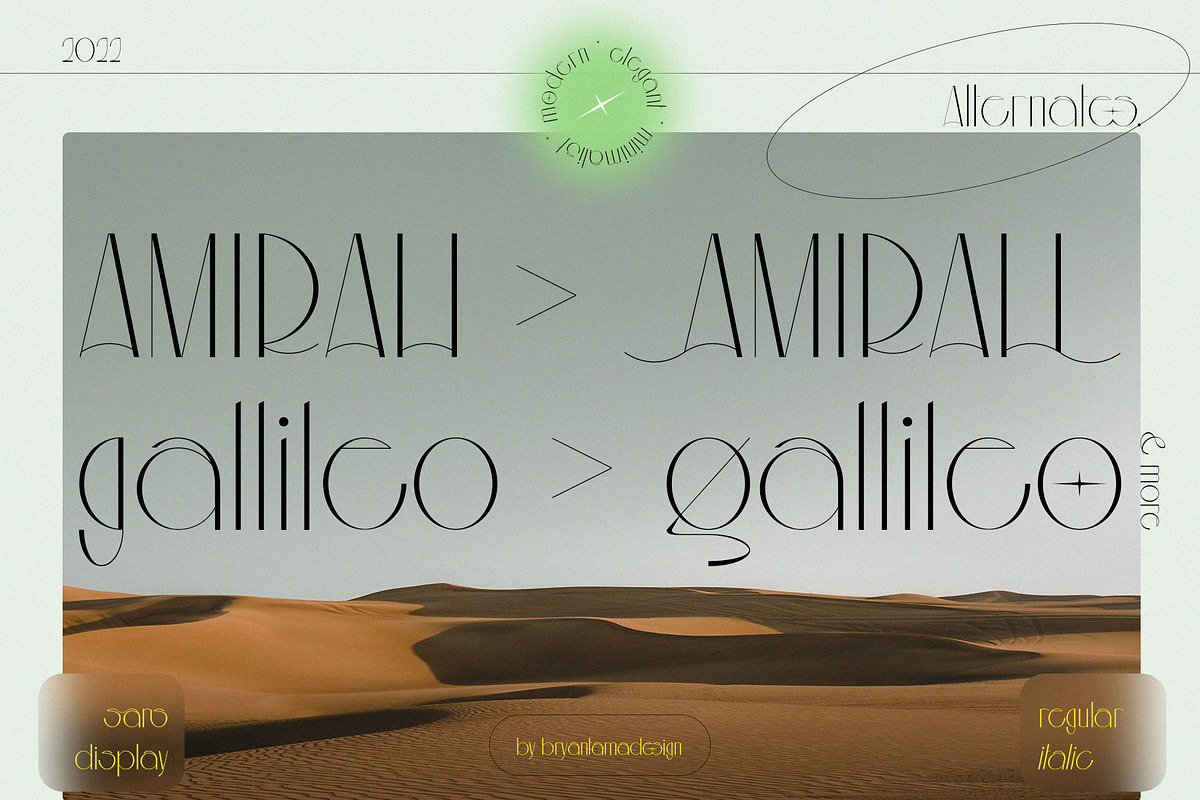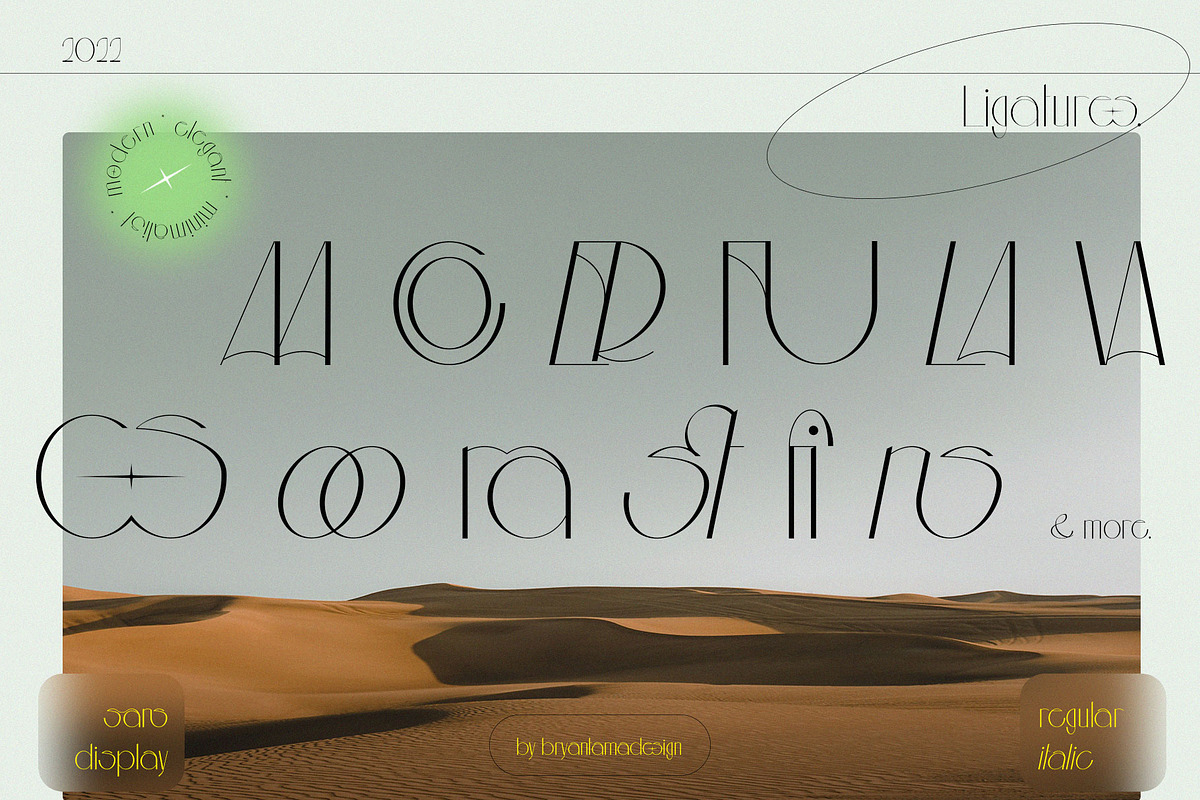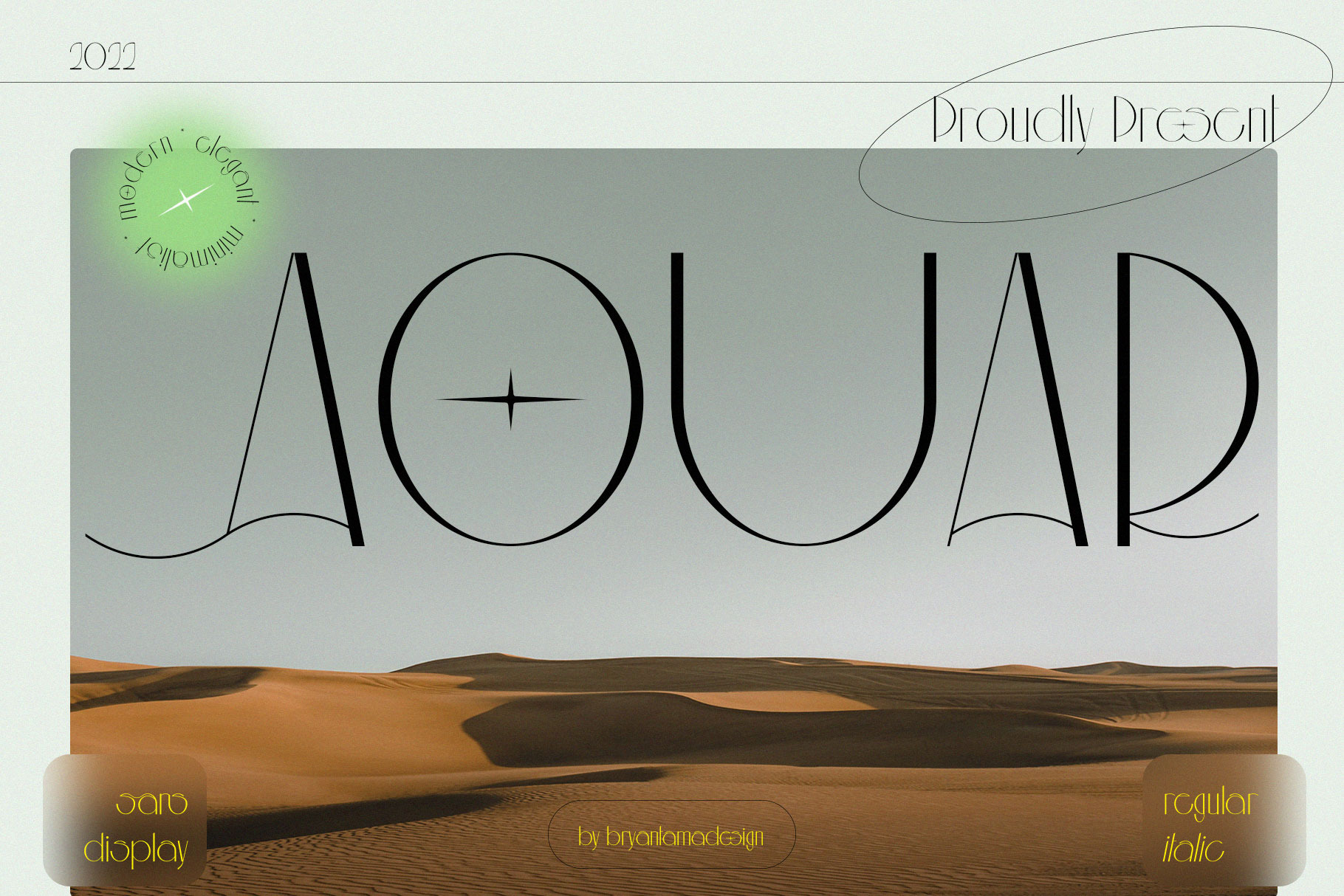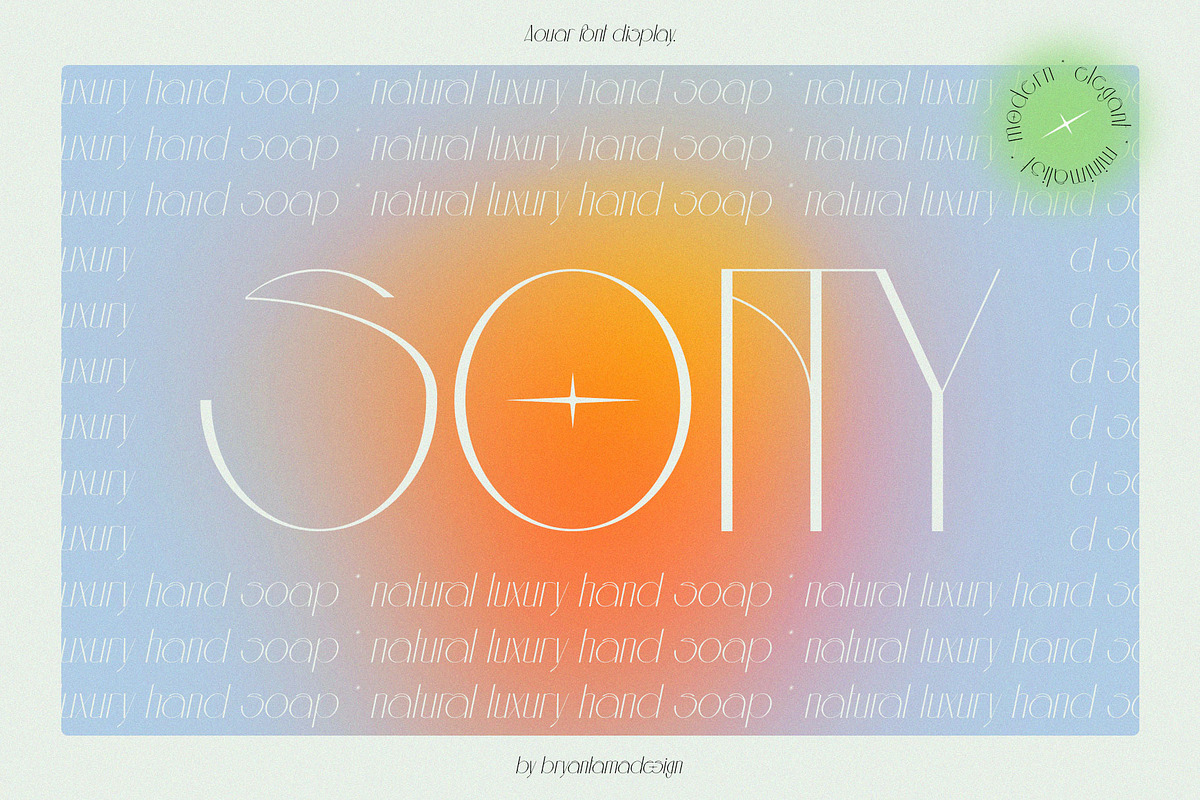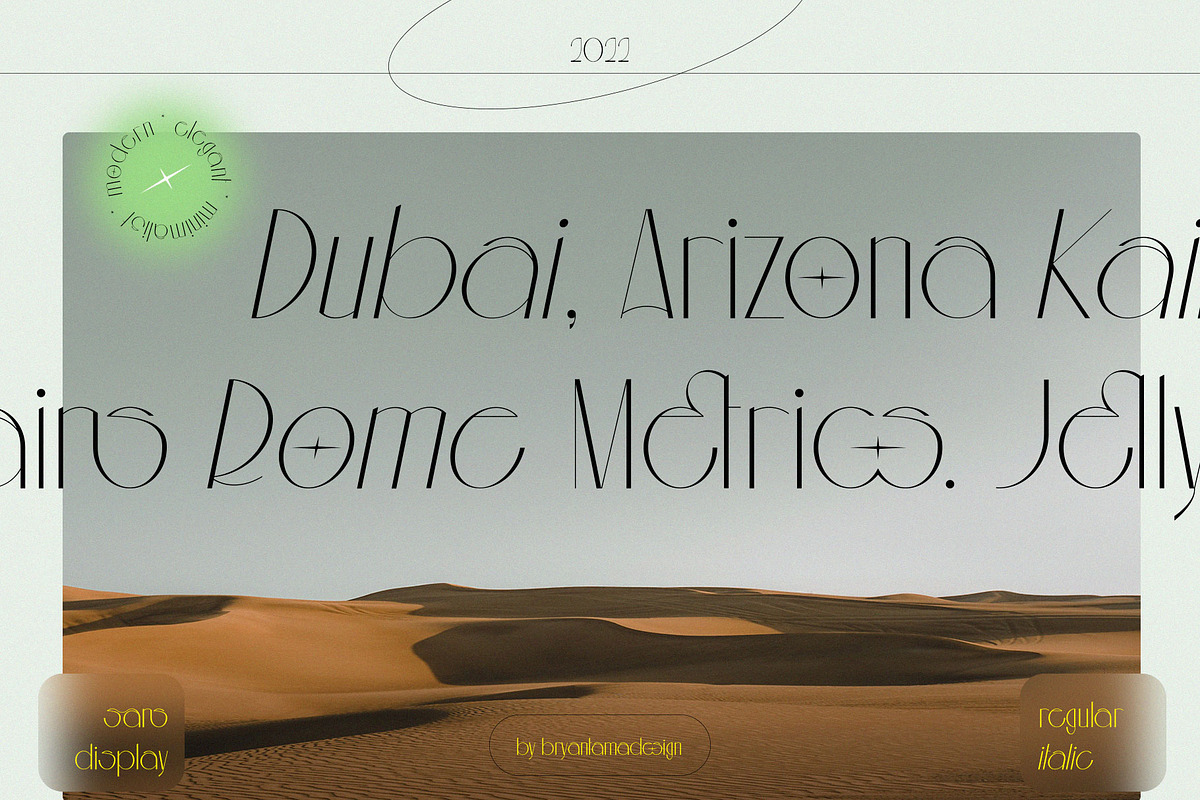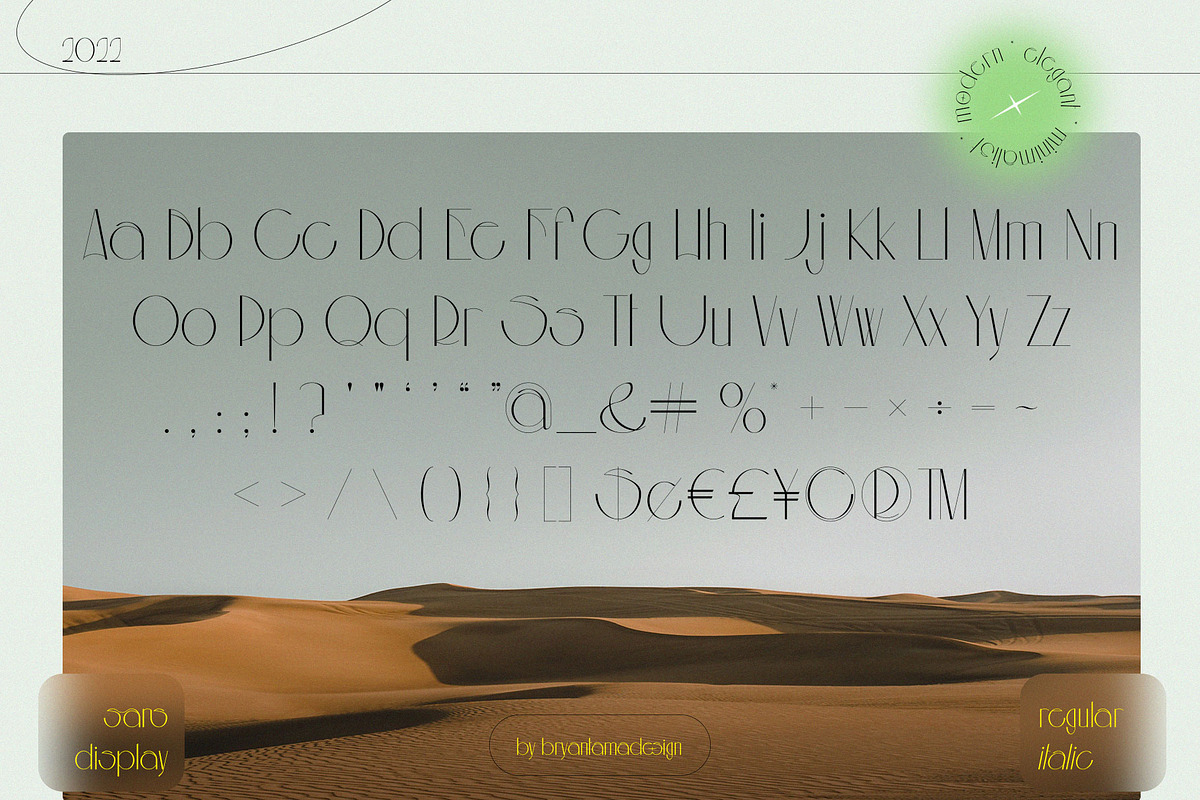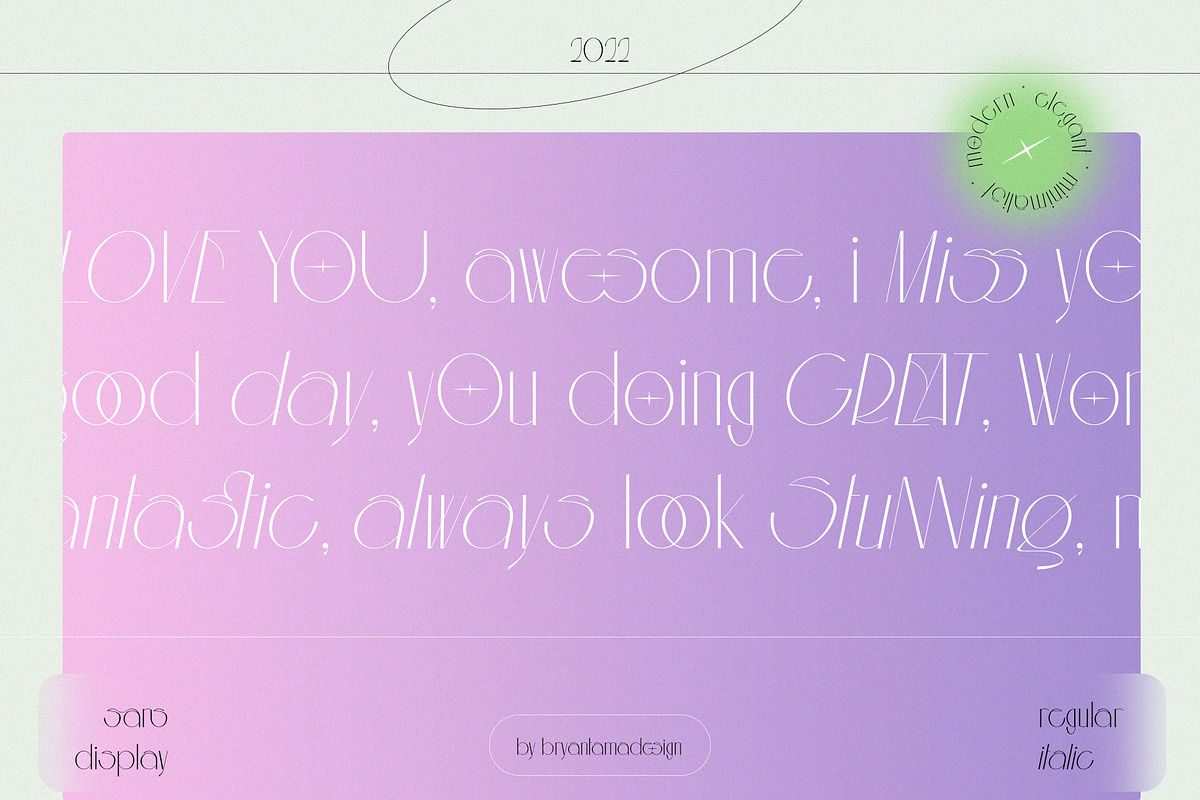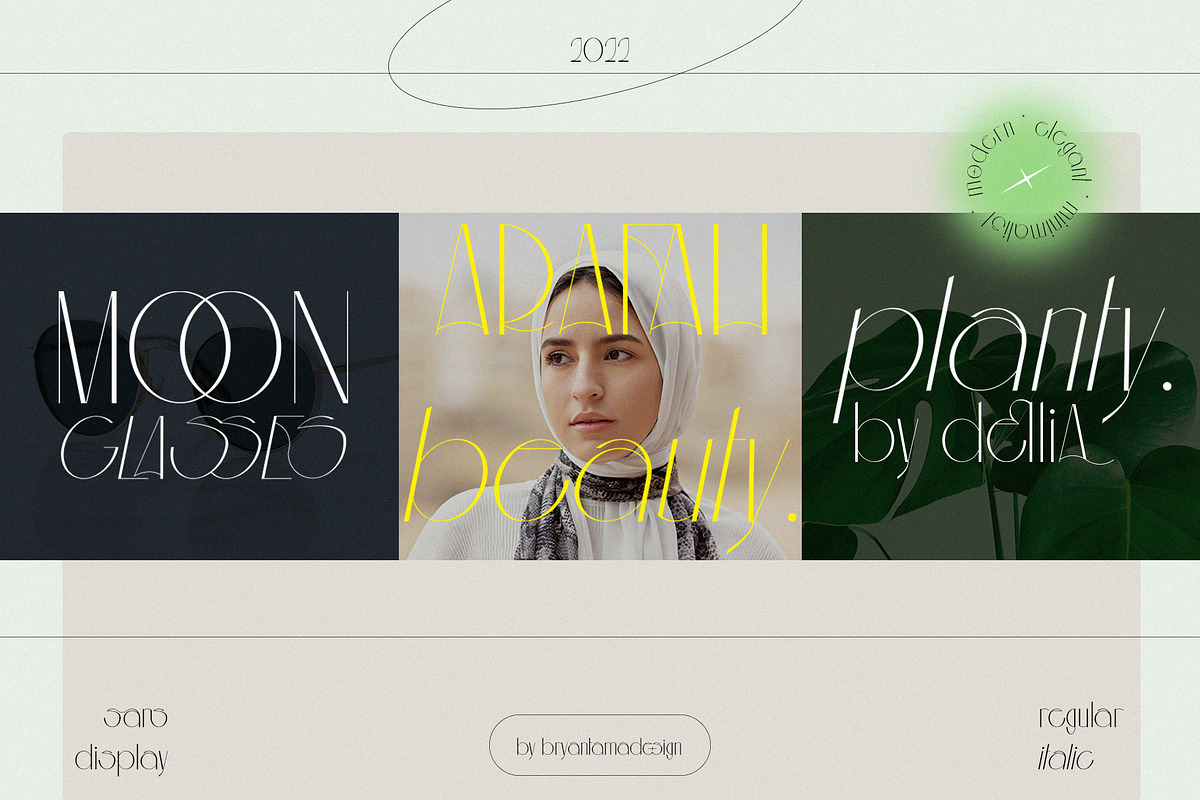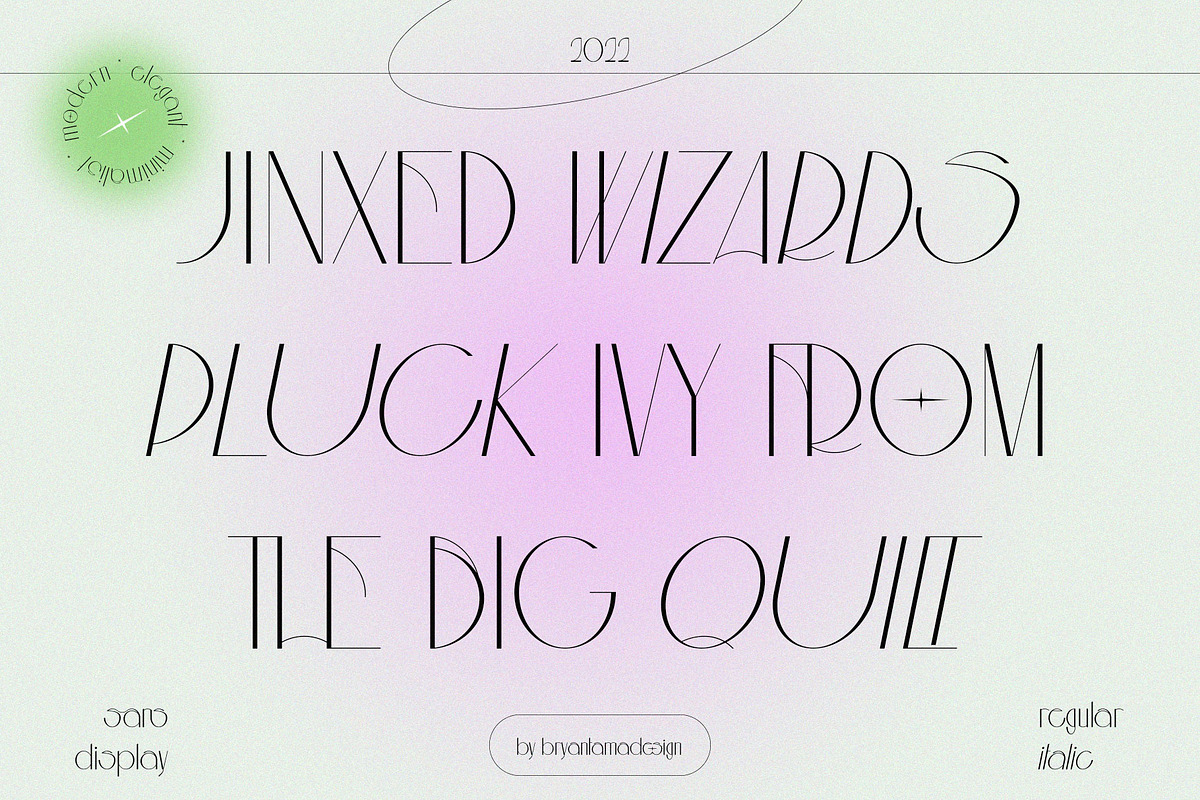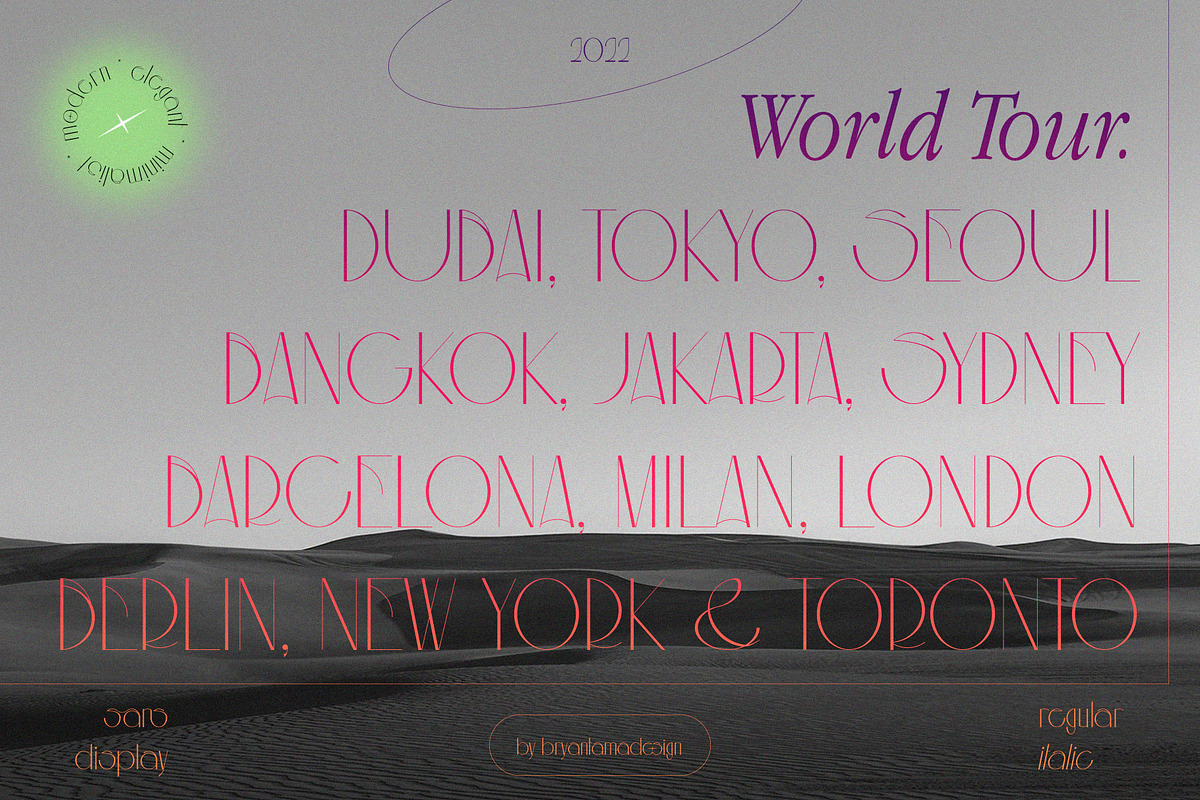
Aouar - Minimalist Font
Introducing Aouar. Minimalist Font.
Inspired by the desert landscapes theme with Minimalist, Elegant, Modern feels that makes the font have a unique personality, can use for branding, social media, posters, packaging, & more.
Uppercase, Lowercase, Numbers, Punctuation.
Opentype Features (Alternates & Ligatures).
Multilingual Support.
Elevate your designs with Aour Typeface, a sophisticated minimalist display font defined by sleek lines and refined curves. Crafted for high-end branding, editorial layouts, and luxury packaging, it delivers an effortless sense of class and exclusivity.